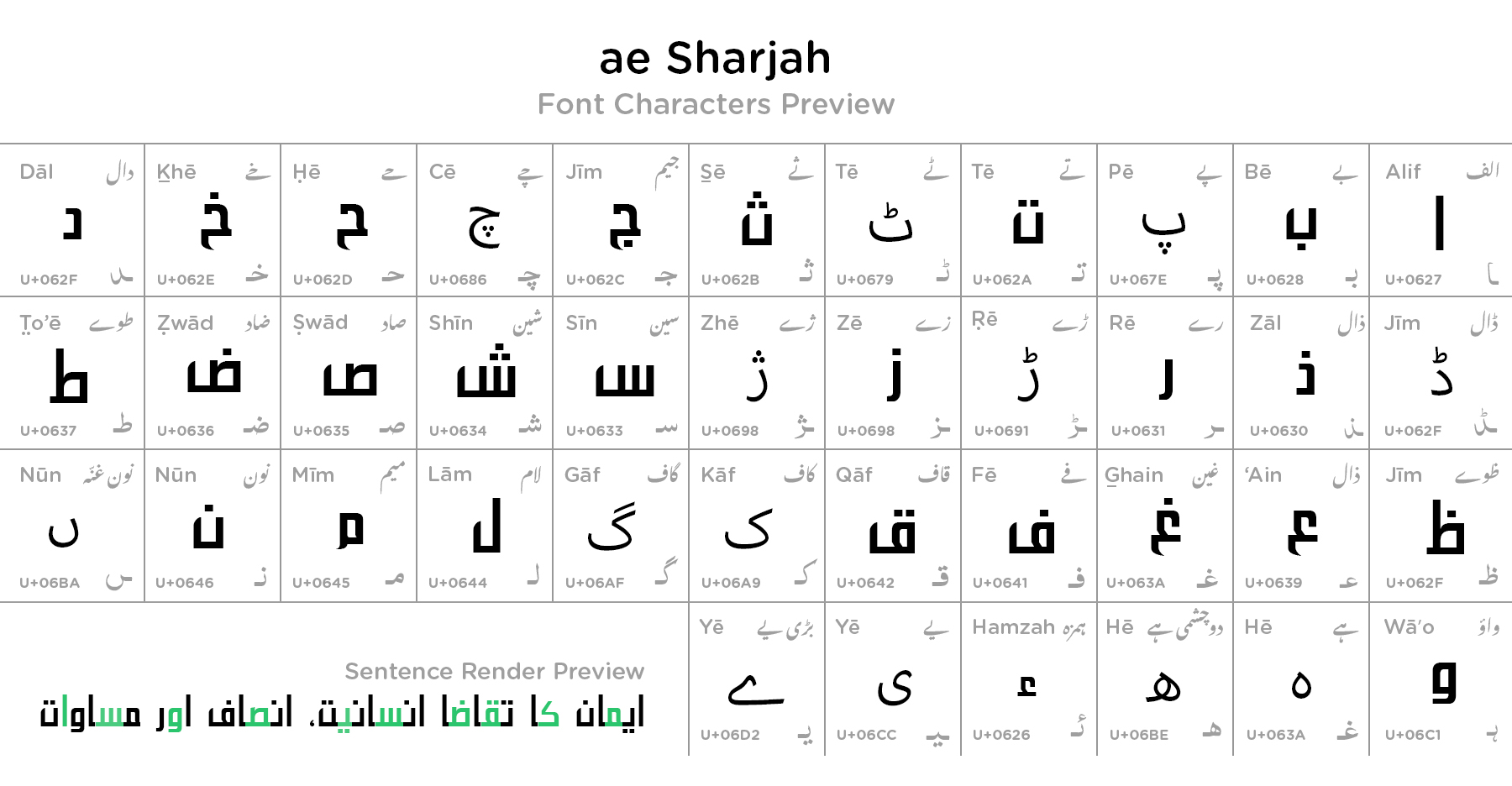
ae Sharjah is a geometric Arabic typeface that has a sophisticated screen presence. It was designed by font designer Fazlur Rahman Quraishi and released under the trademark of Arabeyes in 2017. The font has well-aligned letters that present a symmetrical appearance. This suggests that it’s a modern display font rather than a calligraphy font having ties with classical Arabic scripting languages. Given its technical specifications, the font has 476 letters, special signs, and a glyph count of 456 to write any language easily. It has wide language support to handle multilingual projects without any problems. Moreover, the font offers compatibility with a variety of Unicode Block including Basic Latin, Latin-1 Supplement, Latin Extended-A, Latin Extended-B, Spacing Modifier Letters, Greek and Coptic, Arabic, General Punctuation, Currency Symbols, Letterlike Symbols, Mathematical Operators, and more, indicating towards its diverse nature.
This typeface has monospaced letters and aligned letterforms with rounded zero spaces. It only comes in a single font weight, which limits its overall adaptability to achieve certain design goals in different projects. It has constant thickness throughout the letterform, giving it a more modern look and ease of understanding screen appearance. It has a solid stroke throughout, giving your text an impactful feel. The font is highly legible on screen due to its bold and wide letterforms. The font lacks any intricate design details; however, due to its bold outlook, it is preferred to be used for short bursts of text. ae Sharjah, with its clean and minimalistic design, can be used to adorn your official documents with its bold appearance or in digital printing like newspapers and books to make impactful and attention-grabbing headings.